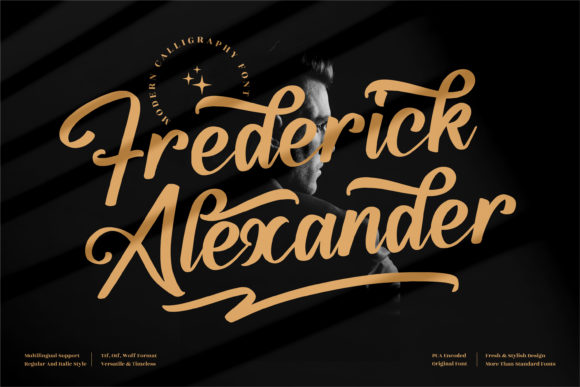
Step into the world of elegance and sophistication with Frederick Alexander, the captivating script font that will transform your creative projects into masterpieces. Crafted with meticulous attention to detail by the talented Perspectype, Frederick Alexander exudes a timeless charm that will leave an unforgettable impression on your audience.
Immerse yourself in the beauty of Frederick Alexander's flowing lines and graceful curves. Each letter dances across the page with a sense of effortless style, evoking a sense of nostalgia and romance. Whether you're designing logos, branding, or creating heartfelt quotes, Frederick Alexander will elevate your work to new heights.
Unleash your creativity with Frederick Alexander's extensive glyphs and swashes, easily accessible thanks to its PUA encoding. Explore a world of possibilities, from delicate flourishes to sweeping strokes, and let your imagination run wild.
With Frederick Alexander at your fingertips, you'll discover a font that is as versatile as it is beautiful. Its enchanting script style seamlessly complements a wide range of design projects, from wedding invitations to product packaging. Create designs that speak to your audience's hearts and leave a lasting impact.
Embrace the allure of Frederick Alexander and watch as your creative visions come to life. Its timeless elegance and versatility make it the perfect choice for designers, artists, crafters, and anyone seeking to add a touch of magic to their projects. Step into the world of Frederick Alexander and let your creativity flourish.